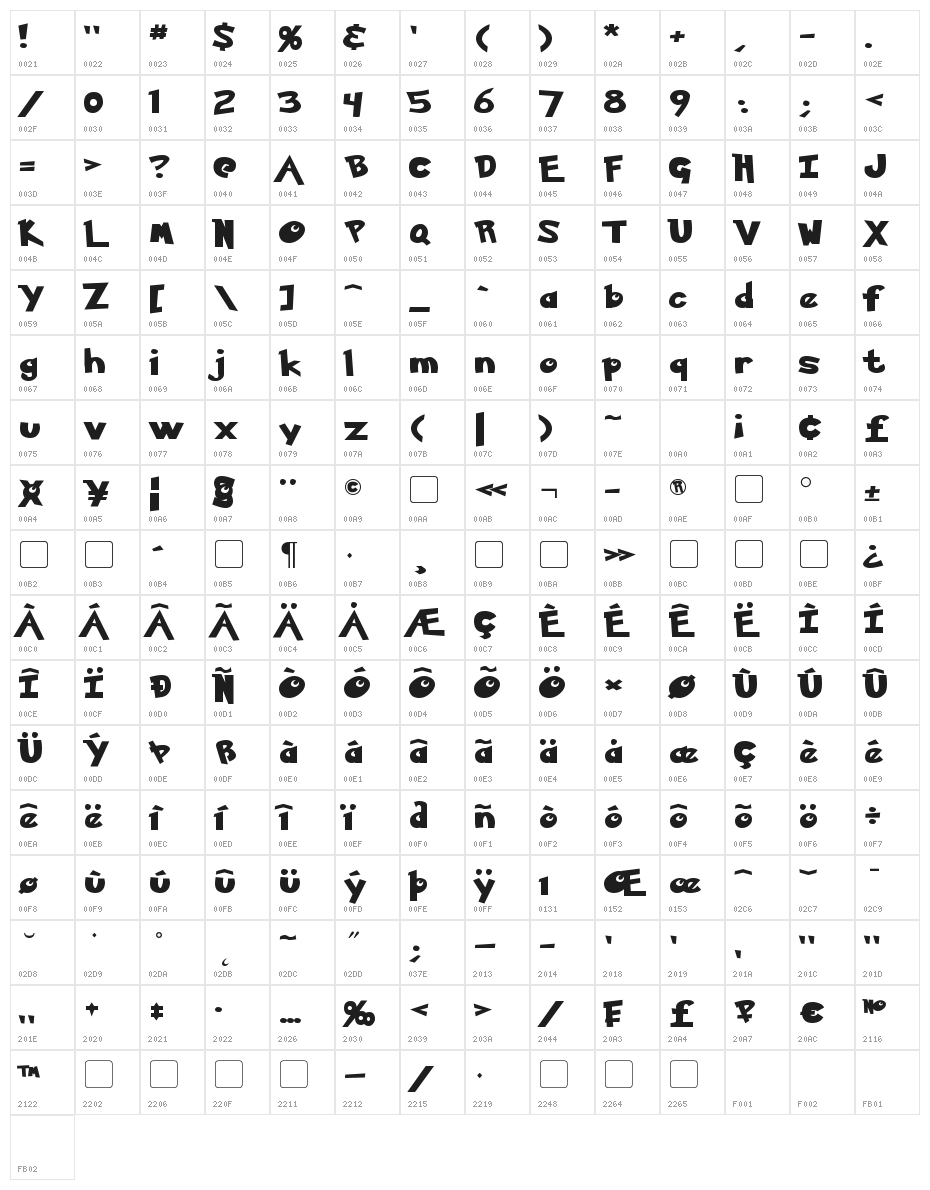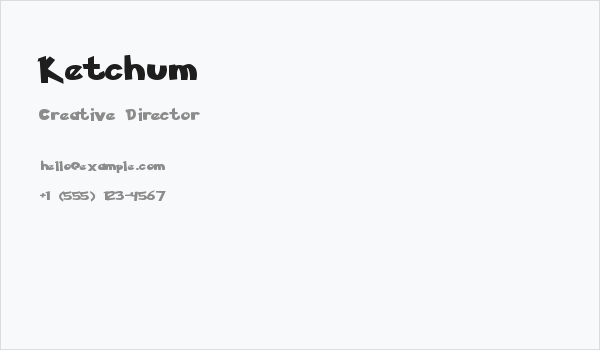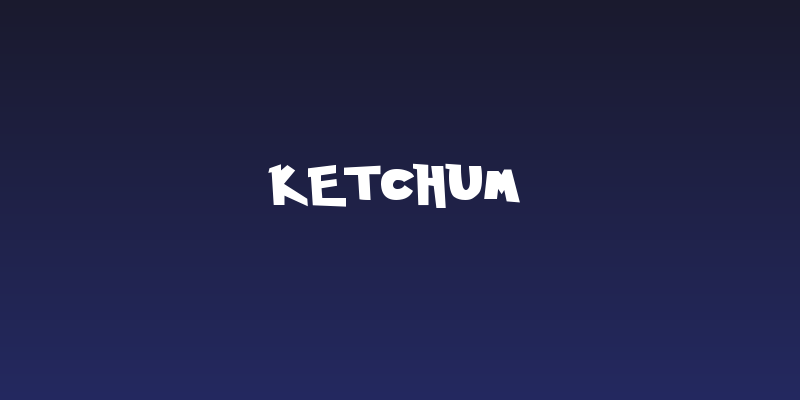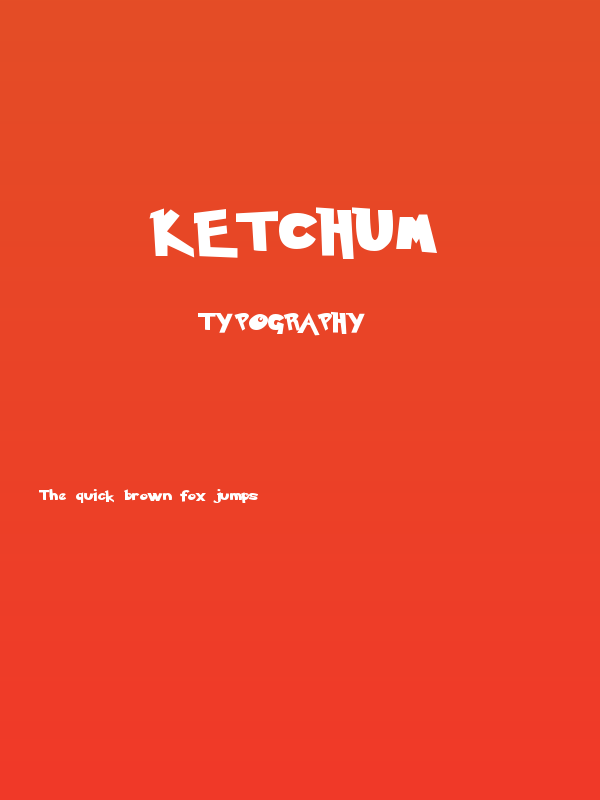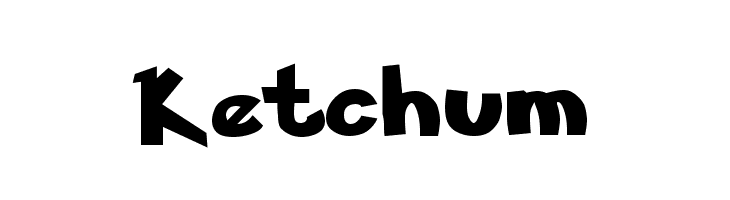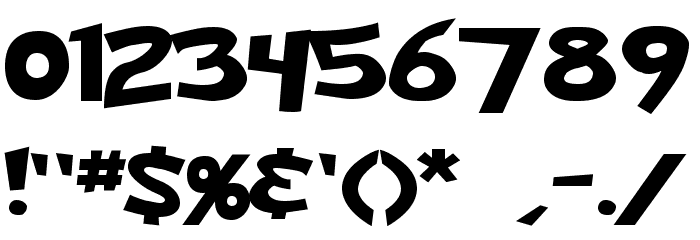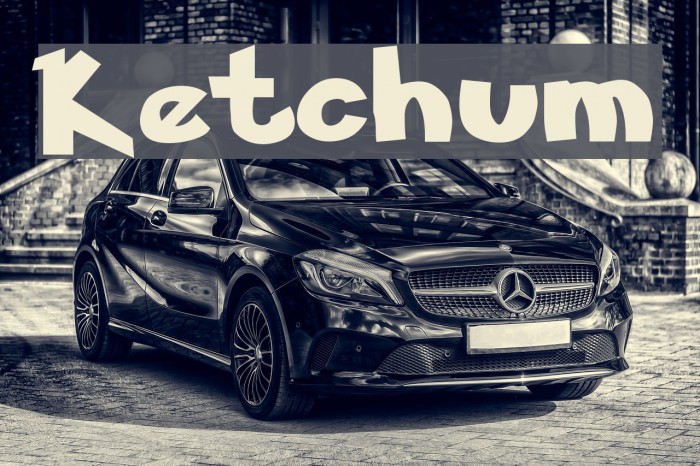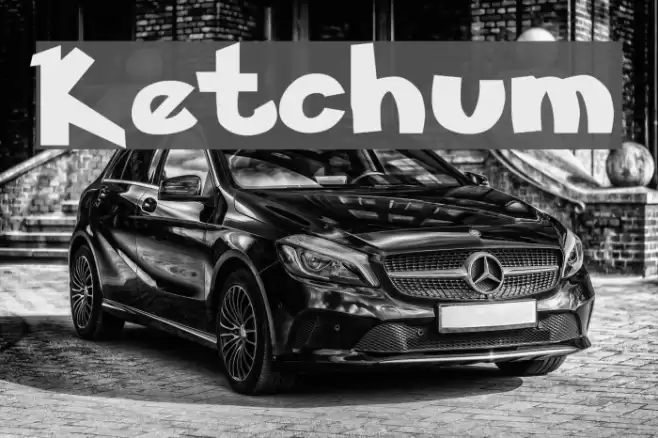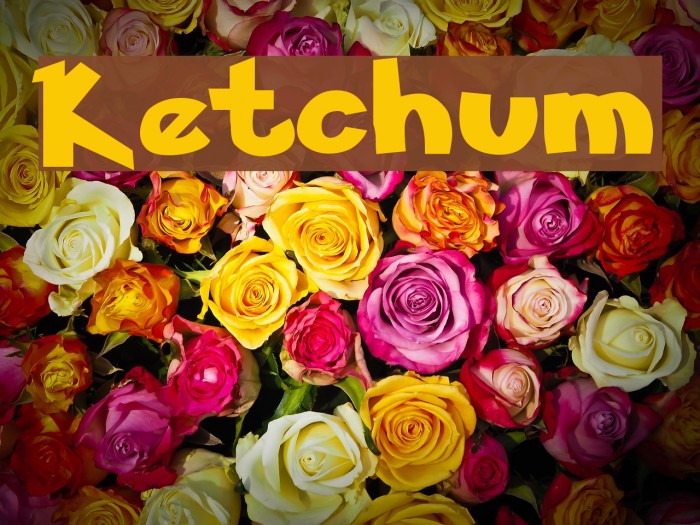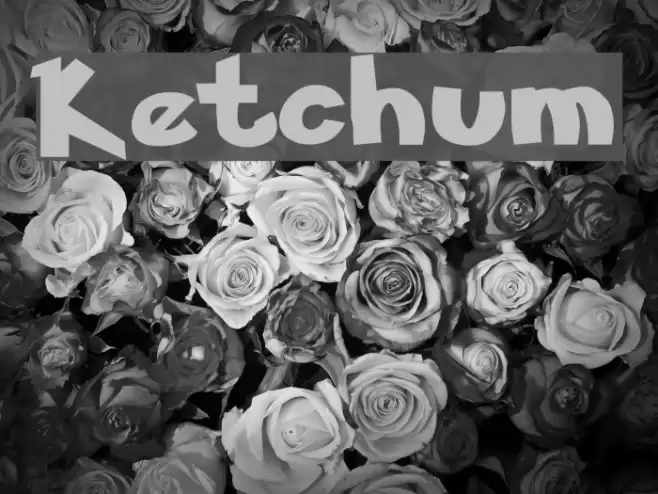
Ketchum Font
Ketchum Description
This font features a playful and bold design with exaggerated curves and angles, giving it a whimsical and energetic appearance. The characters are thick and robust, with a slightly irregular form that adds to its charm. The uppercase letters are particularly striking, with a dynamic flow that suggests movement. The lowercase letters maintain this playful style, ensuring consistency throughout. Numbers and special characters are equally bold and expressive, making them stand out. This font is ideal for projects that require a fun and lively touch.
| Overall Style | Playful |
| Proposed Projects | Ideal for children's books, playful branding, posters, and event invitations. |